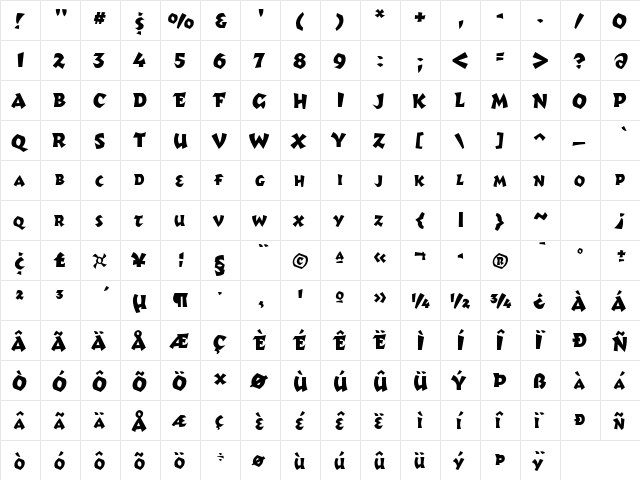
Cumulus Regular
Design Context for Cumulus Typeface
Cumulus is a composed and adaptable typeface that performs quietly and consistently across a wide range of design contexts.
Pro Tip: Use Cumulus in both headline and body roles to test its range before committing to a single application.